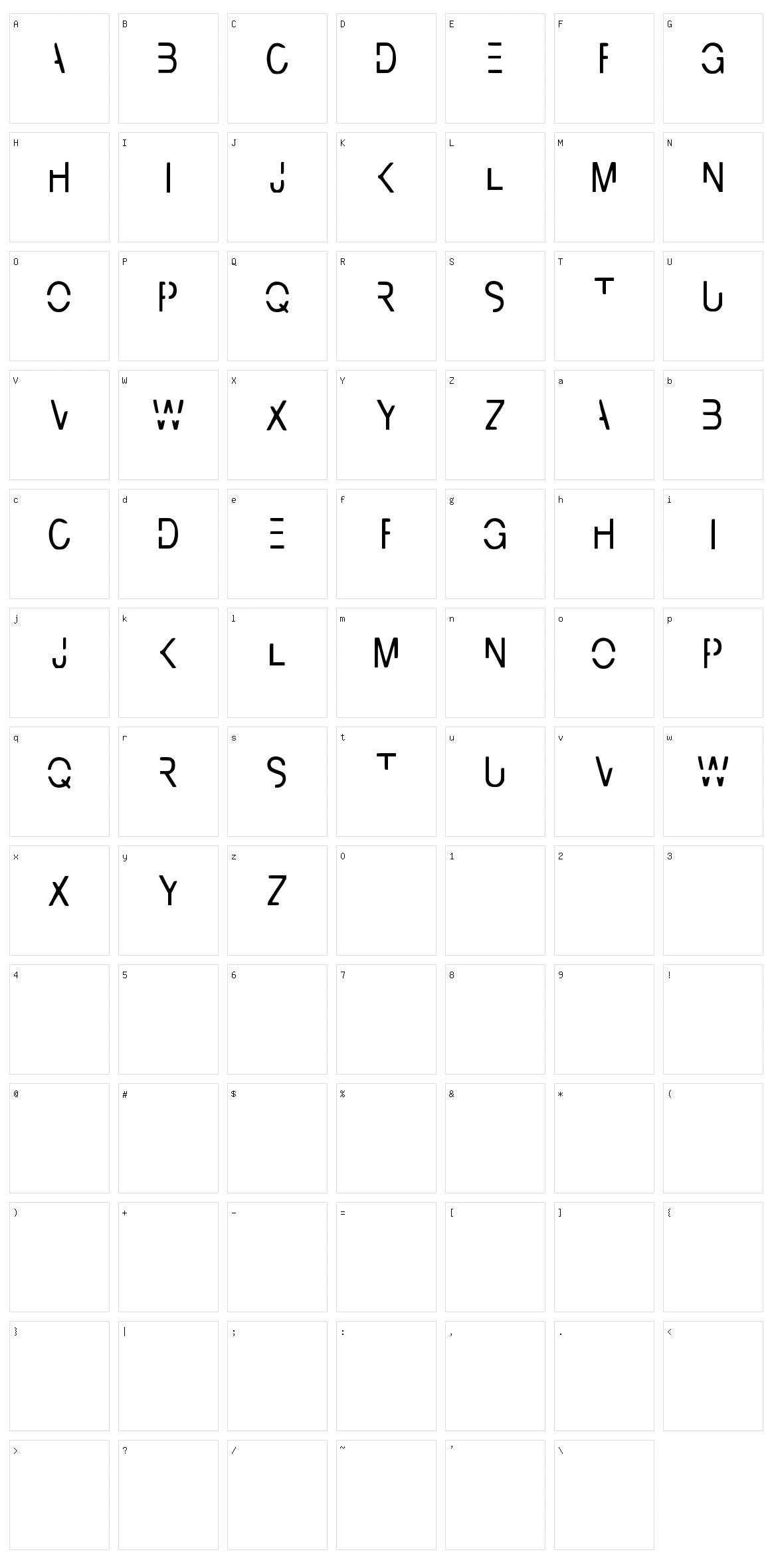
The free font Cyber Bunny is carefully designed by WreckThisGirl, showcasing a thoughtful balance of creativity and usability and falls under the Distorted font style. When you download the ZIP file, it contains only 4.98 KB of font files, making it lightweight and quick to download. Please review the license details below to understand permitted usage and distribution rights. If license information is not available, we recommend using this font for personal projects only or contacting the author directly for commercial usage permissions.